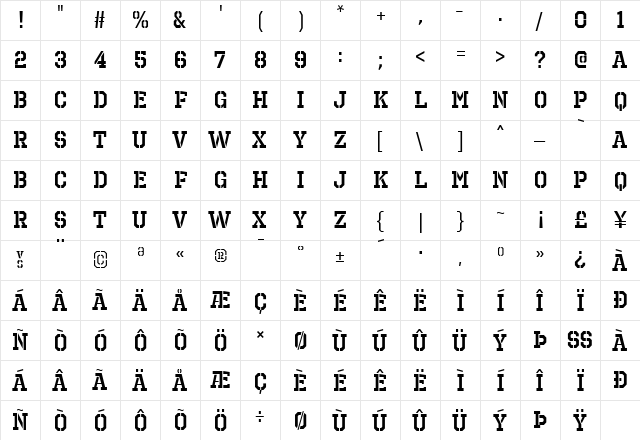
Octin Prison SemiBold
Design Context for Octin Prison Typeface
Octin Prison offers clean, dependable letterforms without strong stylistic allegiance, making it a practical choice for designers who need flexibility. The heavy weight commands attention and anchors typographic hierarchies.
Pro Tip: Pair Octin Prison with a font of contrasting weight or personality to build a more expressive typographic hierarchy.